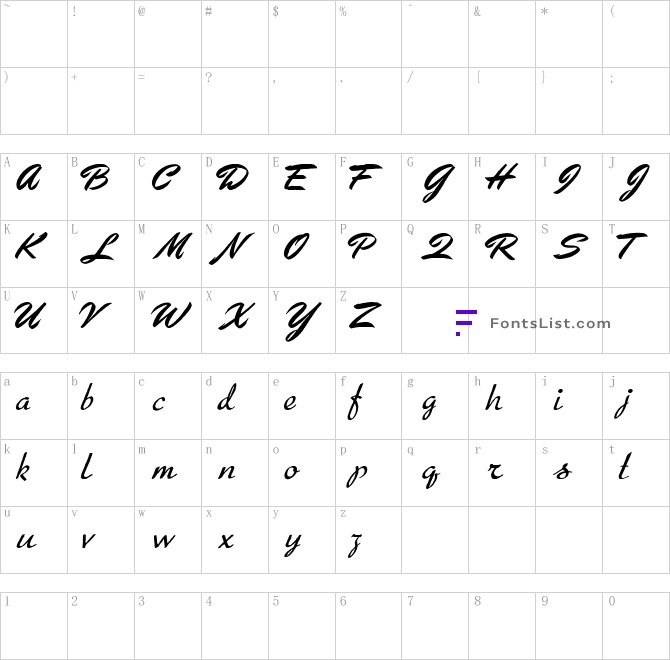
- Font Name:Arresto
Arresto.ttf is a very beautiful artistic font, Arresto.ttf is widely used in the design and printing of various books and pictures,Arresto.ttf has a strong visual impact,Arresto.ttf is a commonly used font in newspapers, magazines and books, and is used in posters, e-commerce Poster design, store design, logo design, font design and other fields.Arresto.